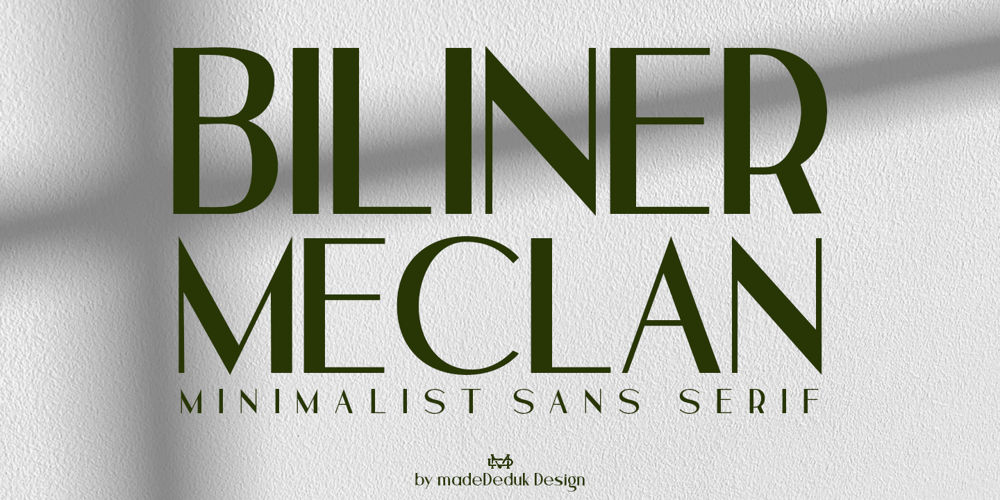
Biliner Meclan Font Family was designed by madededuk and published by madeDeduk. Biliner Meclan contains 1 styles and family package options. Biliner Meclan is a Minimalist Sans, use this font for any branding, product packaging, invitation, fashion, label, poster, logo etc.Feature Uppercase & Lowercase Number & Symbol International Glyphs Multilingual support Alternative Ligature Feel free to drop us a message any time and follow my shop for upcoming updatesHope you enjoy it.